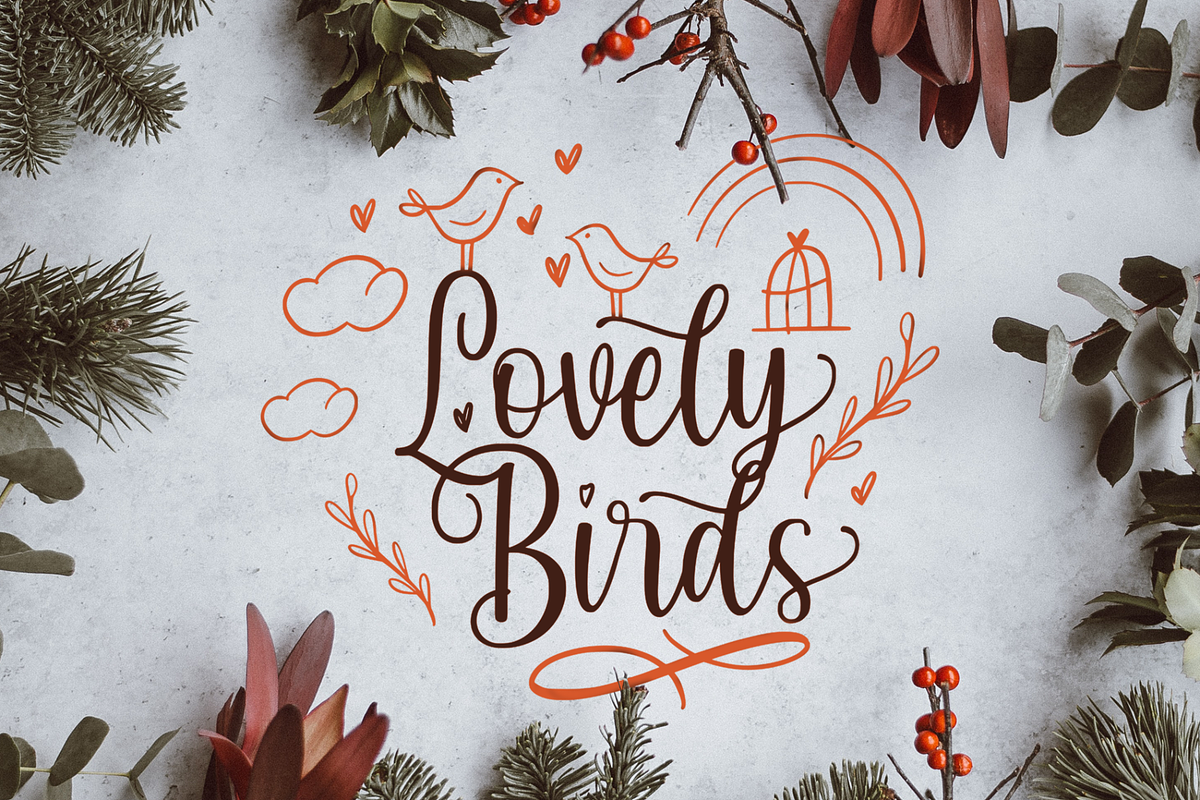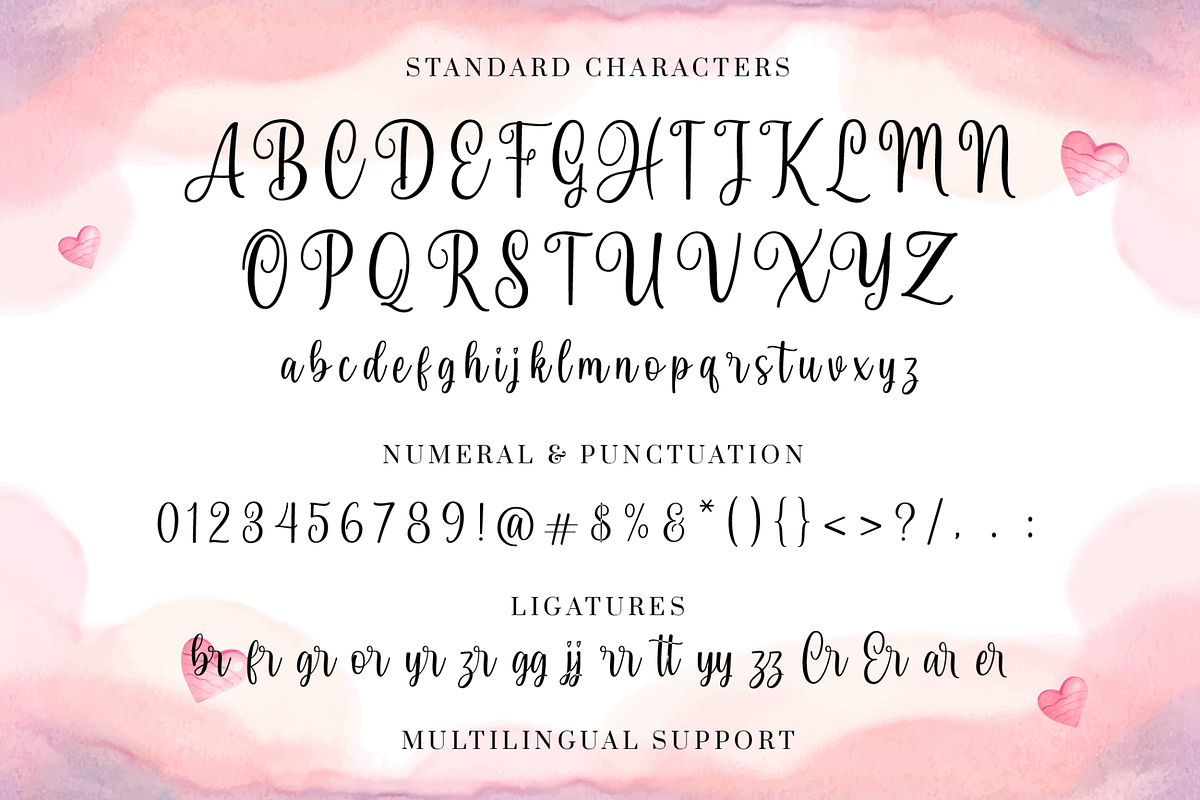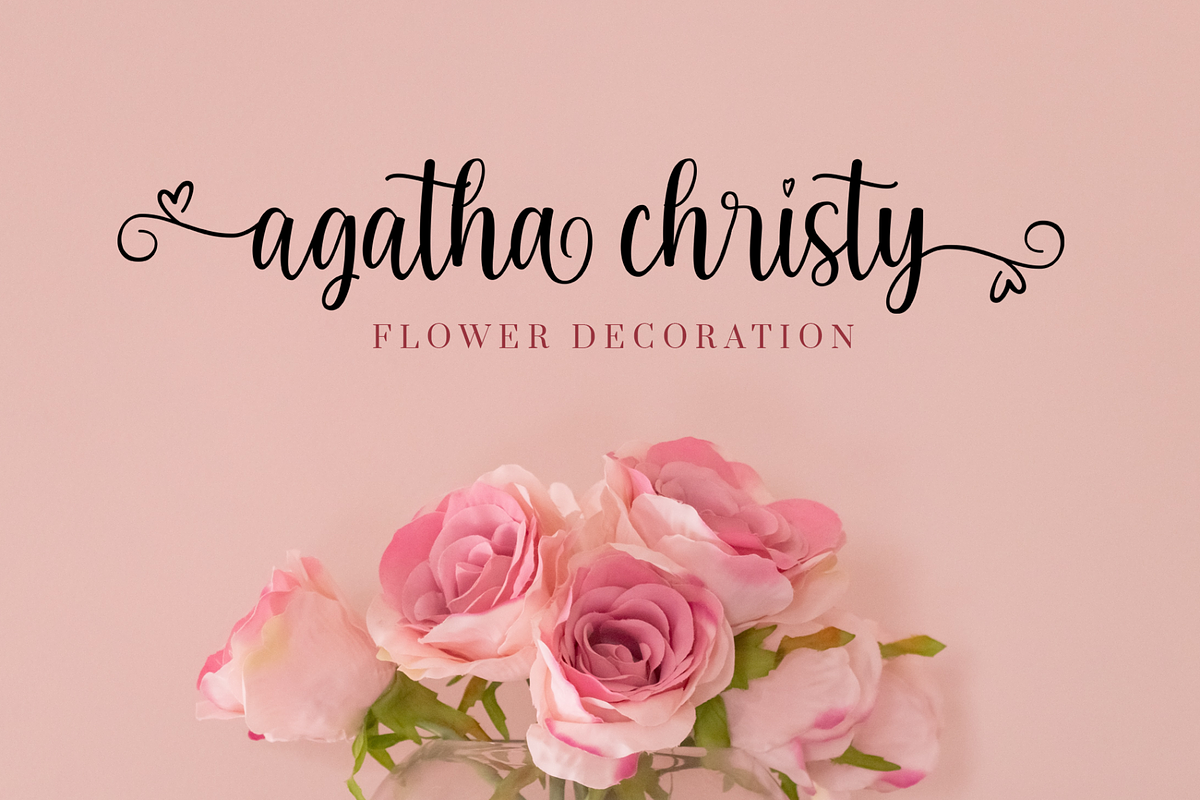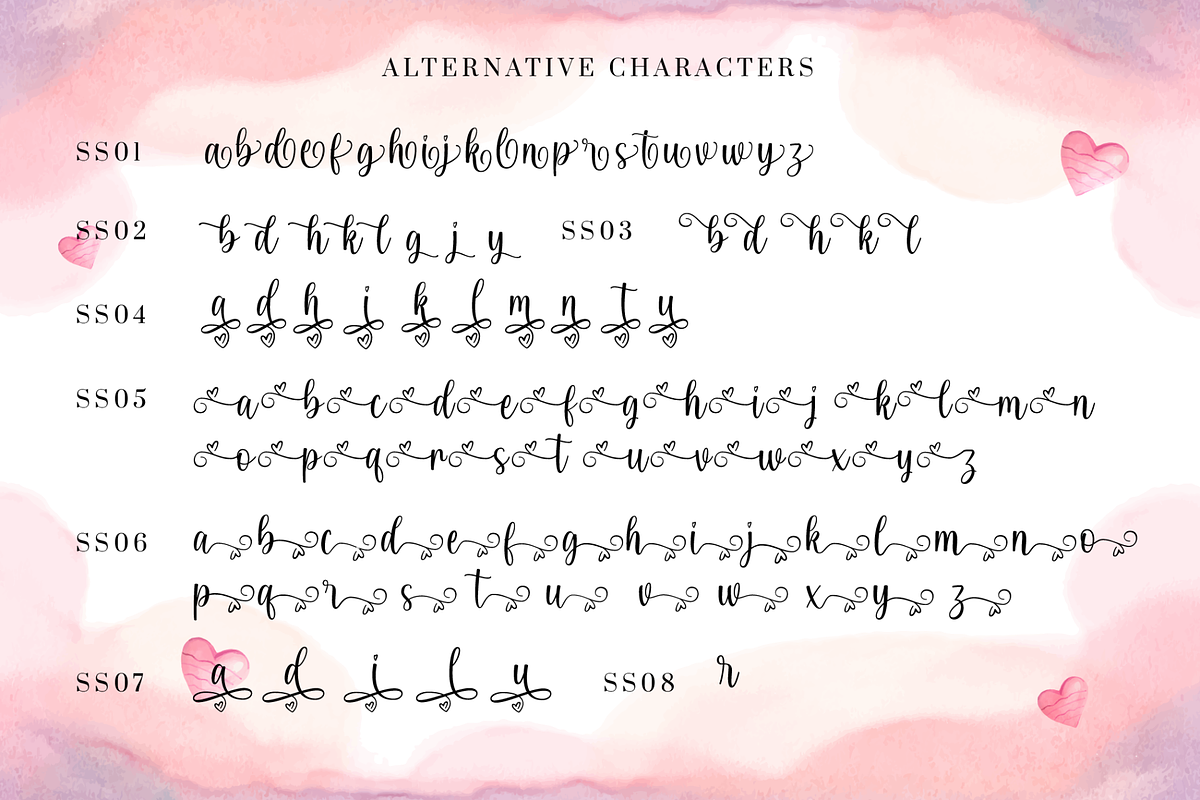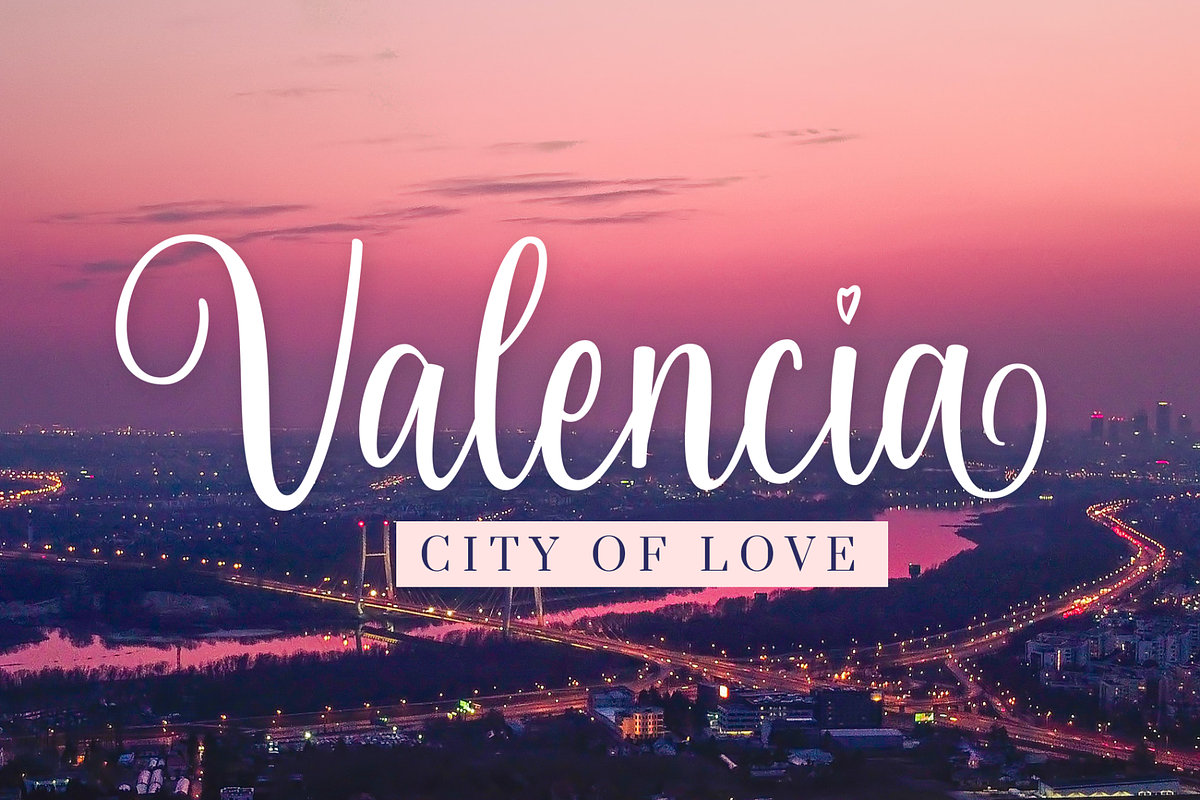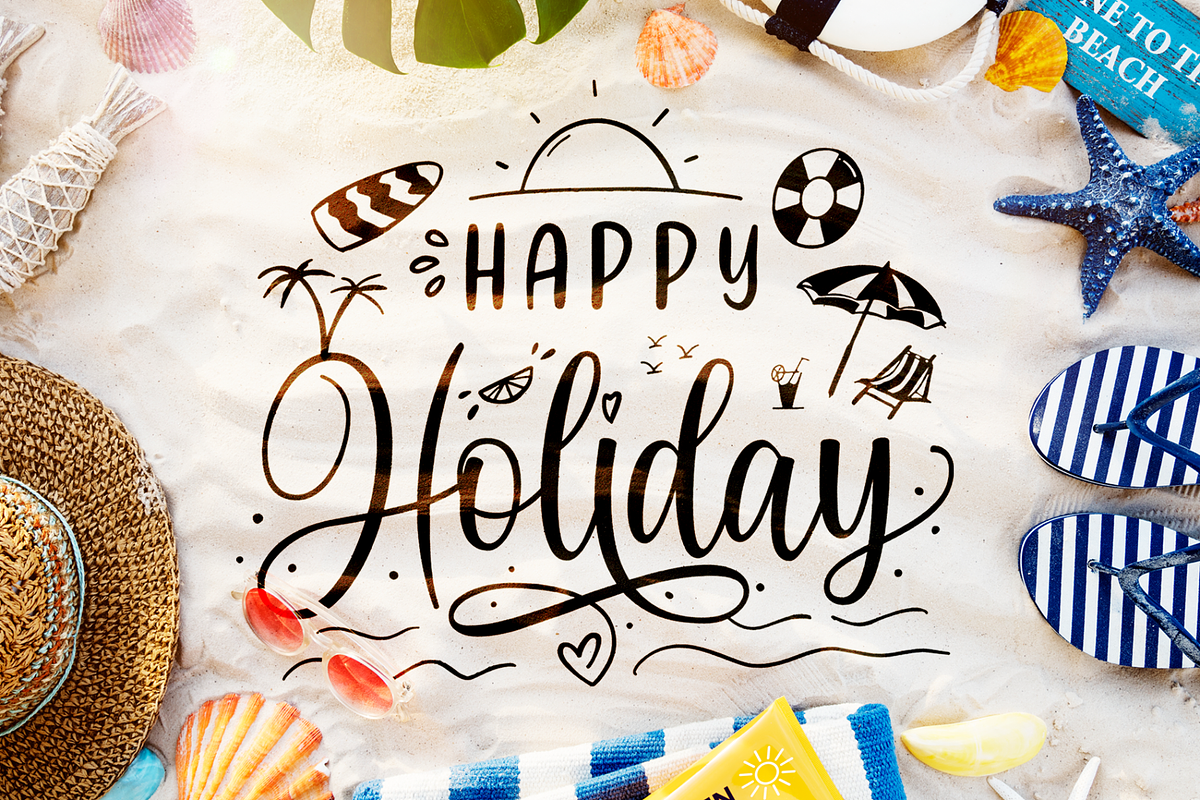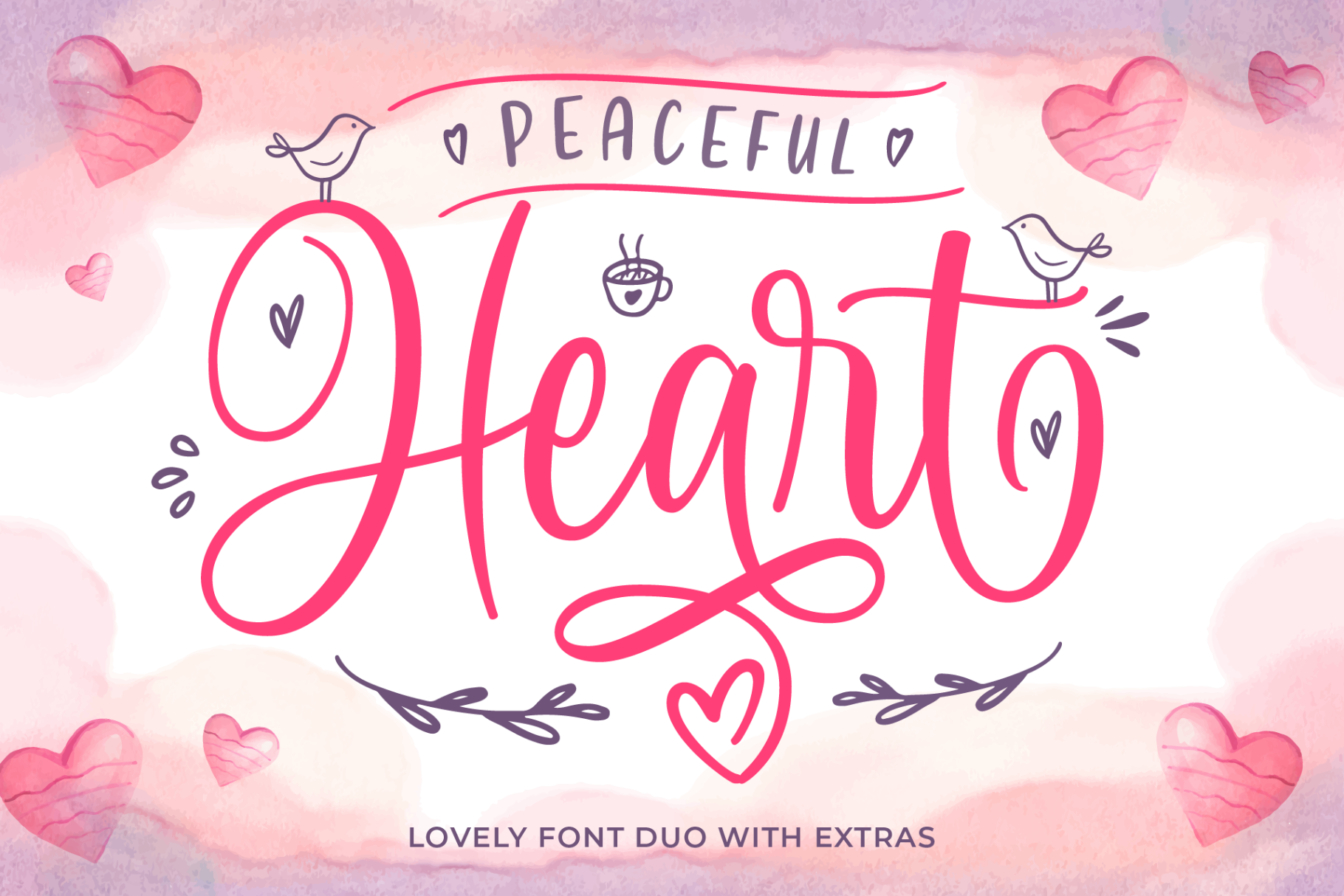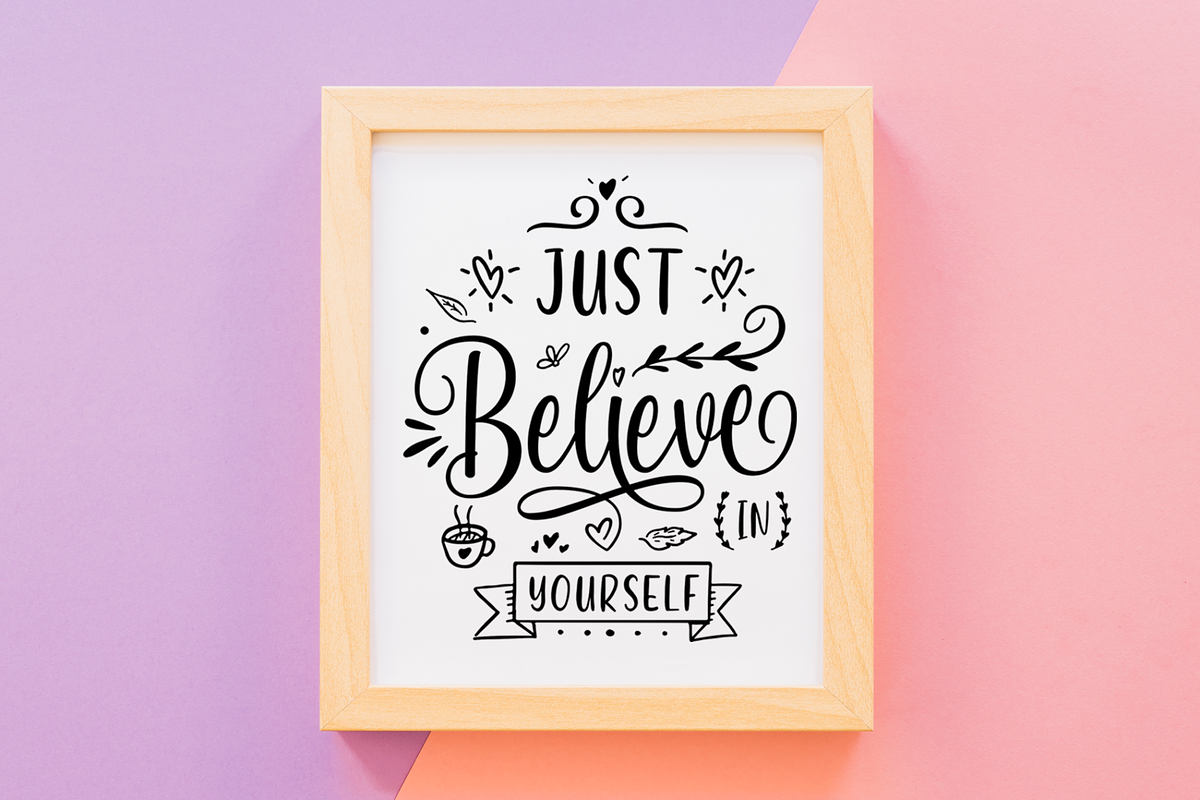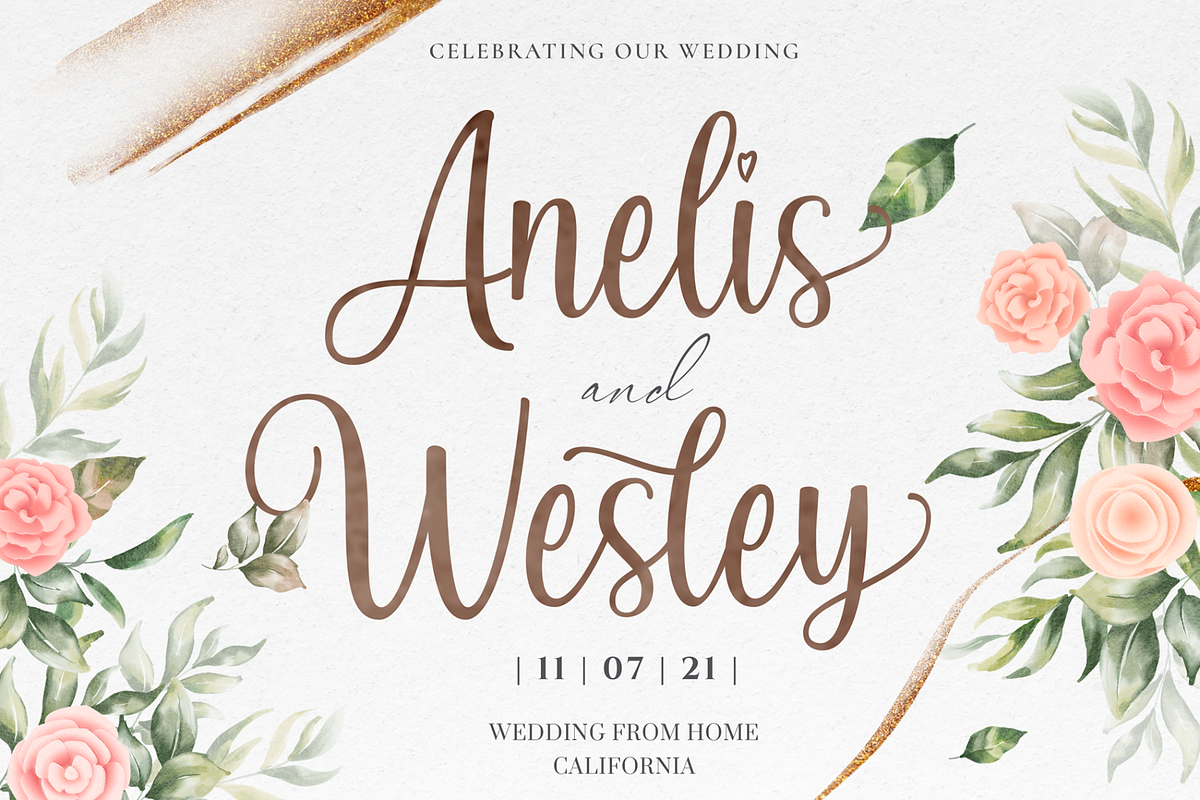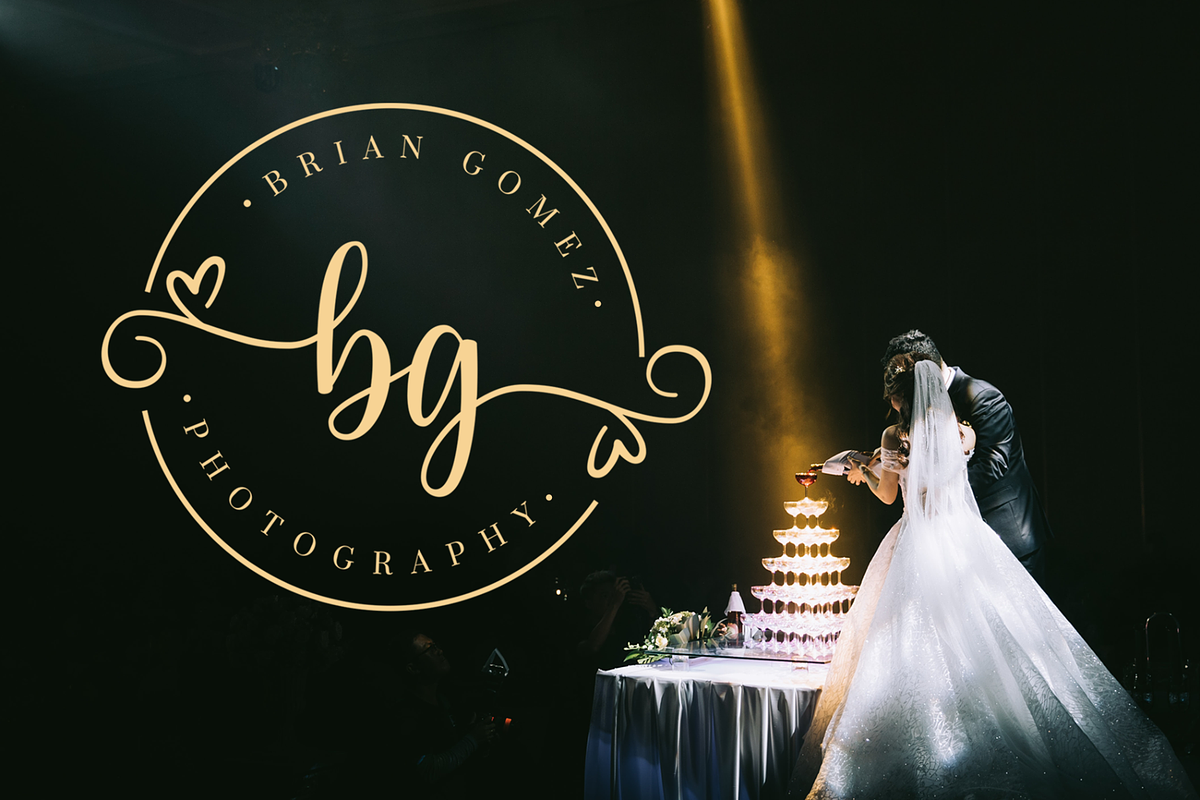
Peaceful Heart - Lovely Font Duo
Peaceful Heart* is a lovely font duo. It's perfectly used to design quotes, invitation, craft, logo and much more. Peaceful Heart comes with extra doodle to make a variation and combination in your design. This font is PUA encoded which means you can access all of the glyphs and swashes with ease!